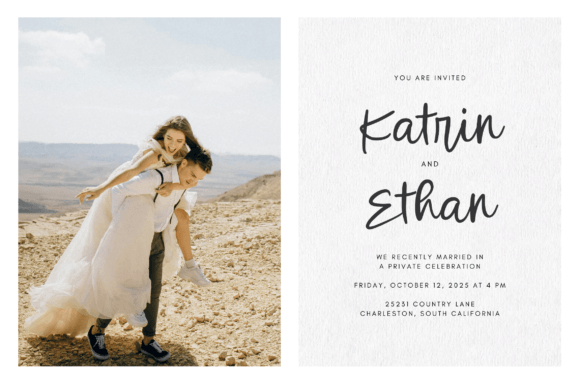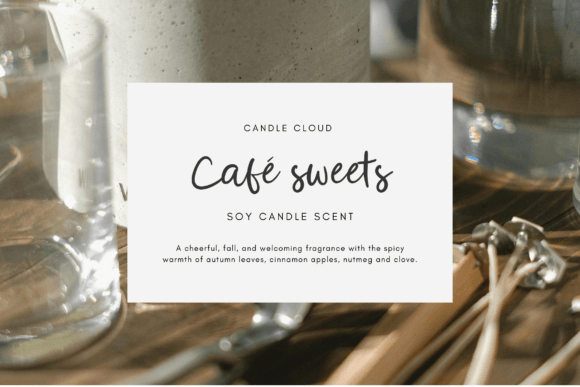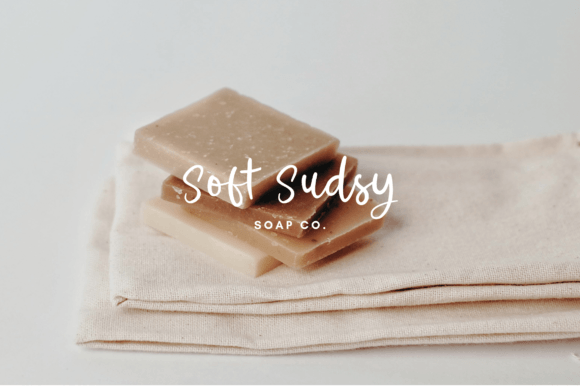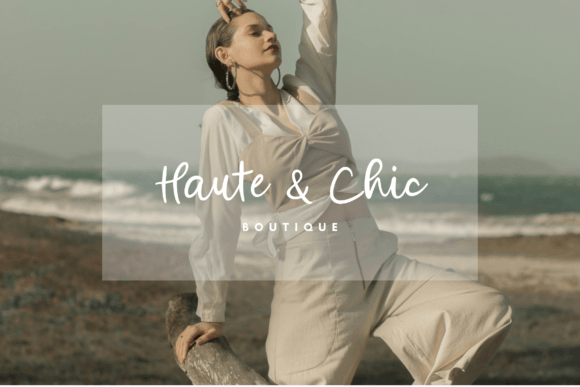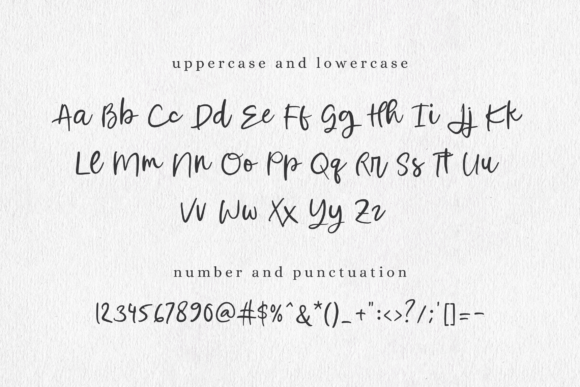
Introduction to French Dusk Font
As a designer, you know the feeling of being stuck on a project, searching for that perfect font to bring your creative vision to life. It’s like stumbling upon a hidden treasure, and suddenly, everything falls into place. This is exactly what happens when you discover the French Dusk Font – a sweet and friendly handwritten font that’s about to become your new best friend.
Imagine a design resource that can elevate your creative project with its natural and unique style. With French Dusk Font, the possibilities are endless, and the only limit is your imagination. Whether you’re working on a personal or professional project, this high-quality font is sure to add a touch of elegance and sophistication to your design.
Key Features of French Dusk Font
- Unique, elegant script design with a touch of French flair, perfect for creative projects.
- Perfect for use in creative projects, such as invitations, posters, and branding materials, where a touch of elegance is required.
Honest Review: French Dusk Font
I recently had the chance to try out the French Dusk Font, and I have to say it’s a solid addition to any designer’s toolkit. ✨ The font’s elegant, cursive script is perfect for creating a romantic and whimsical atmosphere in your creative project.
- High-quality design that’s perfect for luxury branding or creative projects
While the French Dusk Font excels in many areas, there are a few limitations to be aware of. ⚠️ The font’s script style may not be suitable for projects that require a bold or modern aesthetic, and the font’s usage rights may be limited to personal projects.
Overall, I’m impressed with the French Dusk Font’s design and versatility. It’s a great resource for designers looking to add a touch of elegance to their work. If you’re looking for a high-quality font for your creative project, I’d definitely recommend giving the French Dusk Font a try.
How to Use French Dusk Font
The French Dusk Font is a high-quality design resource ideal for creative projects that require a sophisticated and elegant touch. With its unique aesthetic, this font is perfect for designers and artists looking to add a touch of sophistication to their work.
Tips for Getting the Most Out of French Dusk Font
To get the most out of the French Dusk Font, try combining it with other design elements, such as textures and graphics, to create a unique and eye-catching visual style.
The French Dusk Font is ideal for various creative projects, including:
- Brand identity and logos
- Editorial and magazine designs